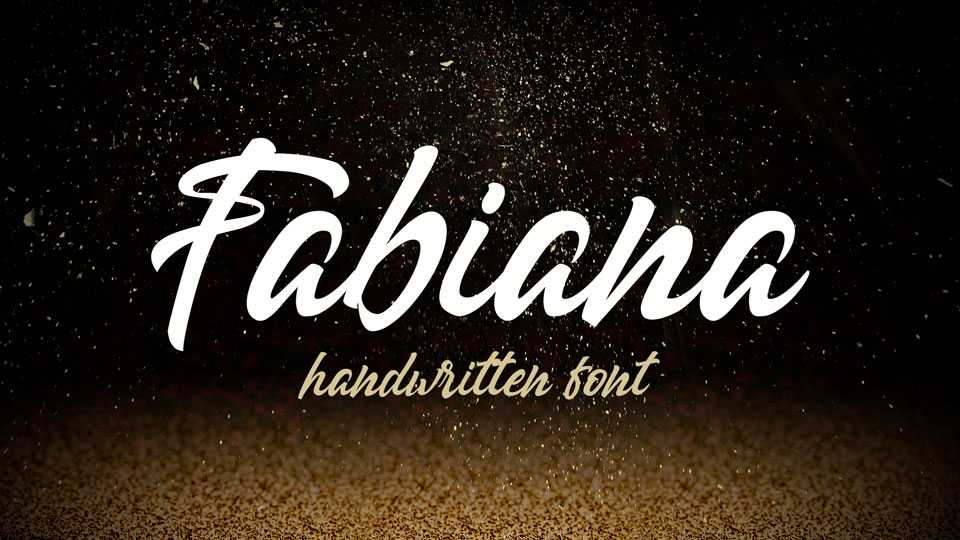
Download Fabiana font, an amazing hand lettered script with a vintage feel. Fabiana is perfect for logos, branding, labels and badges, social media, packaging, t-shirts and more.